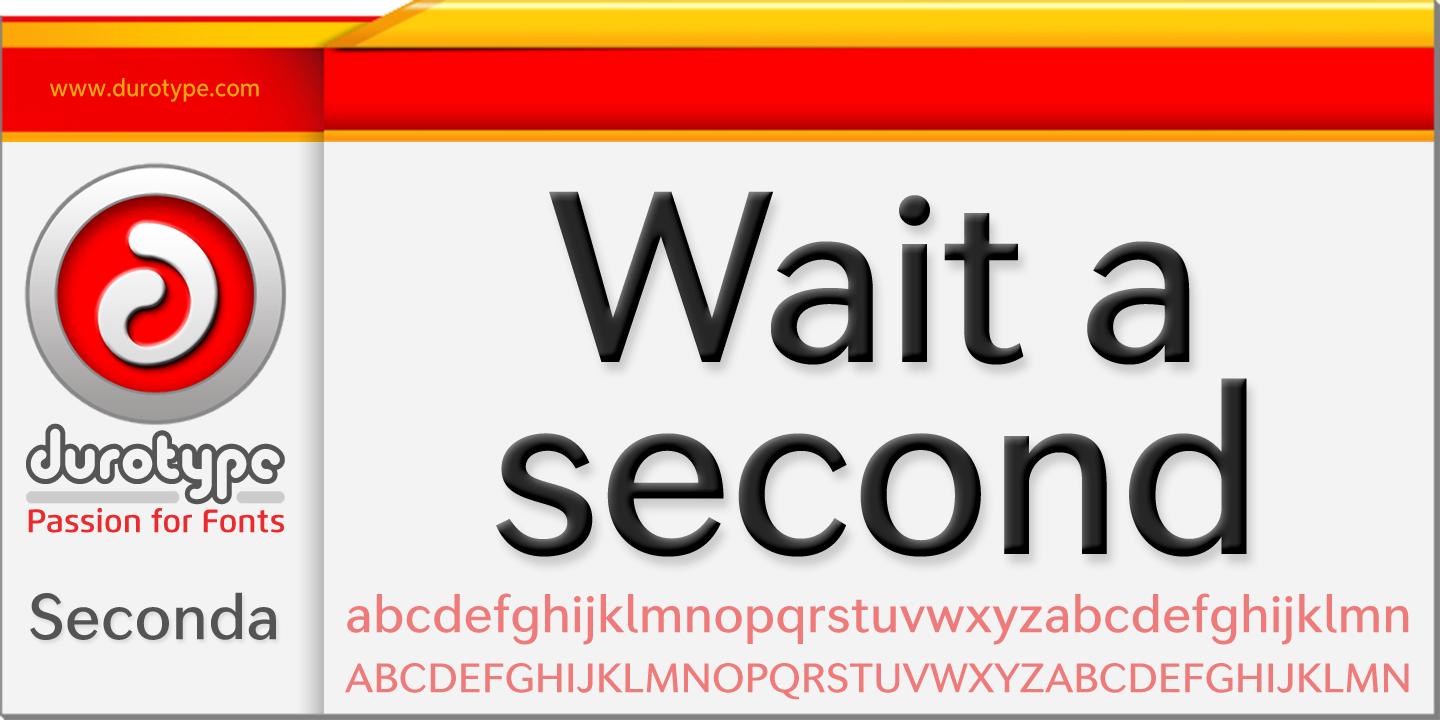
The Seconda Font is excellent for sequel movie titles, series book covers, second edition publications, follow-up product launches, continuation campaigns, volume two materials, next chapter promotions, and successor brand extensions. This progressive typeface works wonderfully in applications where continuity and advancement need to be emphasized, making it perfect for media companies that want to communicate ongoing narratives and sequential excellence through sophisticated, continuation-themed typography.
What makes Seconda Font exciting is its sequel sophistication and progressive evolution that captures the essence of continued excellence and narrative advancement. The font's refined letterforms and sequel-inspired character design create an atmosphere of anticipated continuation and elevated storytelling, making it ideal for brands that want to convey the excitement of ongoing series and the promise of enhanced experiences. Its forward-moving presence ensures that every application feels like the next chapter with genuine sequential credibility and progressive appeal.
The Seconda Font family typically includes regular, medium, and bold weights, often featuring progressive elements, continuation symbols, and sequential design motifs that enhance its narrative appeal. Many versions include chapter indicators, volume markers, and specialized characters that provide designers with comprehensive tools for creating authentic sequel-themed design projects with genuine continuation sophistication and progressive visual storytelling.
For designers working on projects that require sequential authenticity and continuation credibility, Seconda Font Free Download provides exceptional progressive appeal. Its ability to instantly communicate advancement and ongoing excellence makes it an invaluable choice for entertainment brands, publishing houses, and any project requiring typography that embodies the excitement of sequels, the sophistication of continued narratives, and the promising appeal of progressive storytelling and sequential brand evolution.